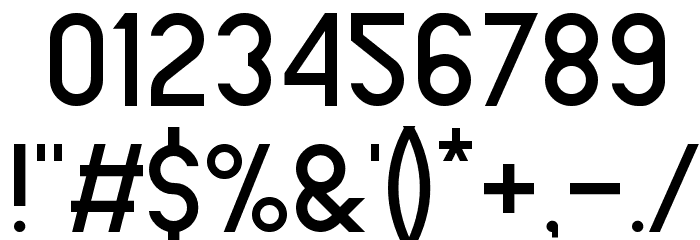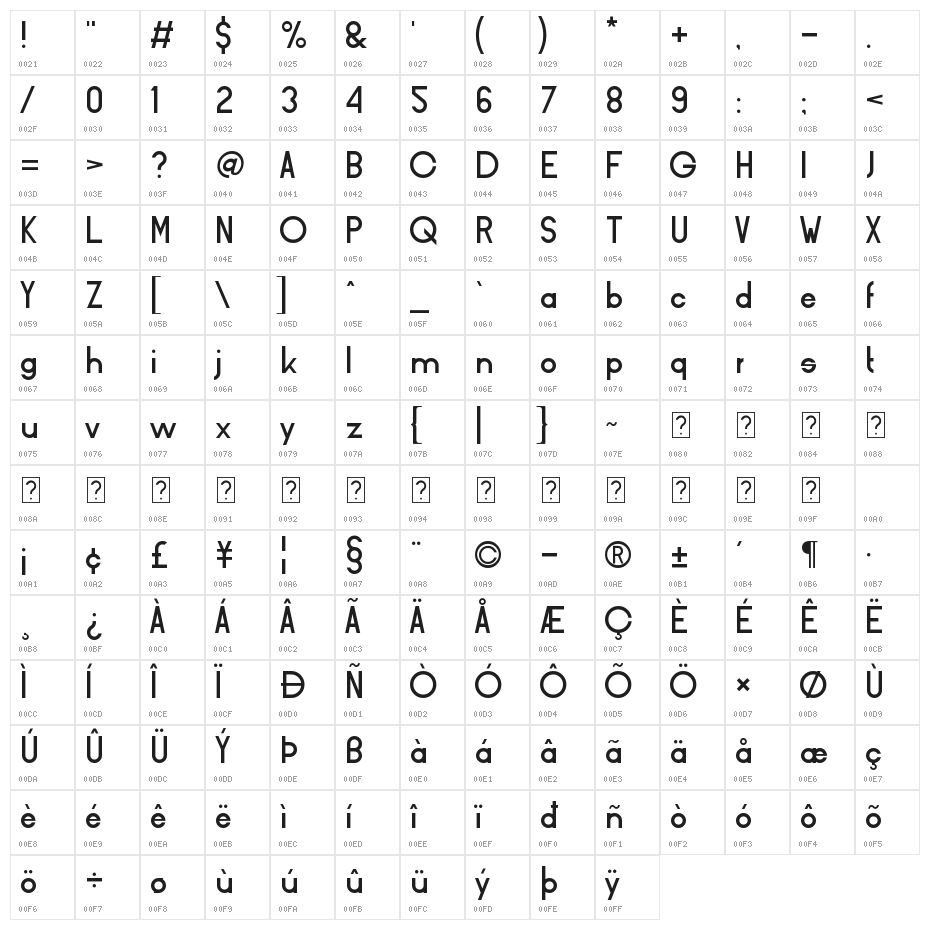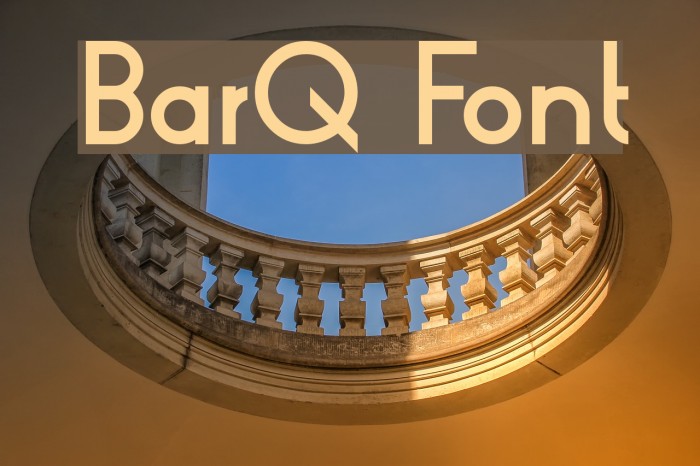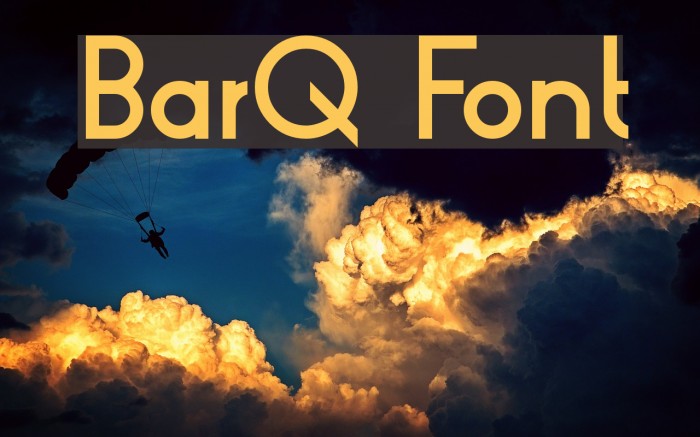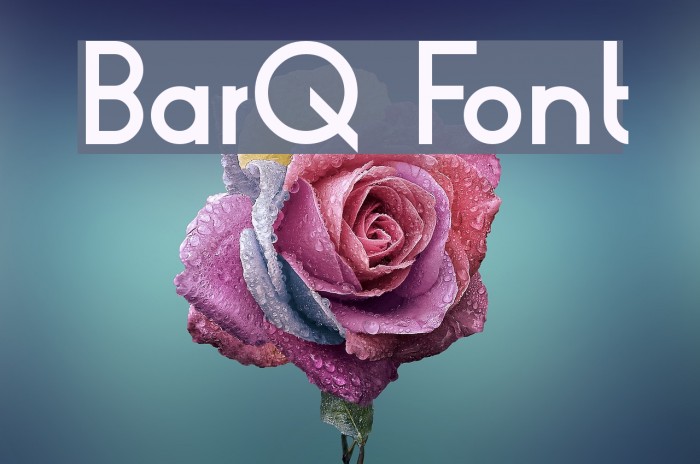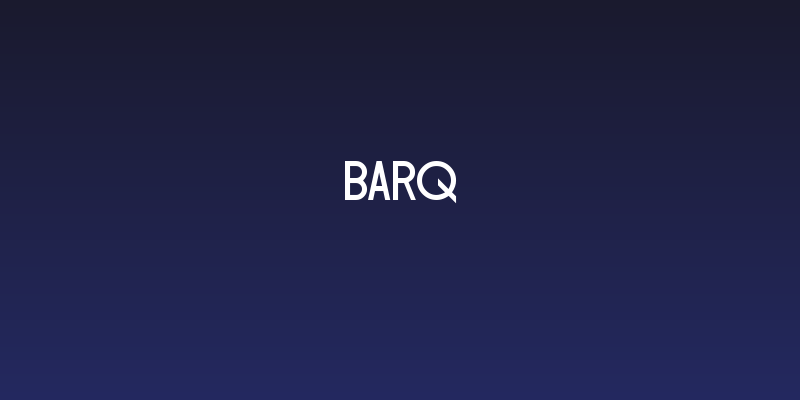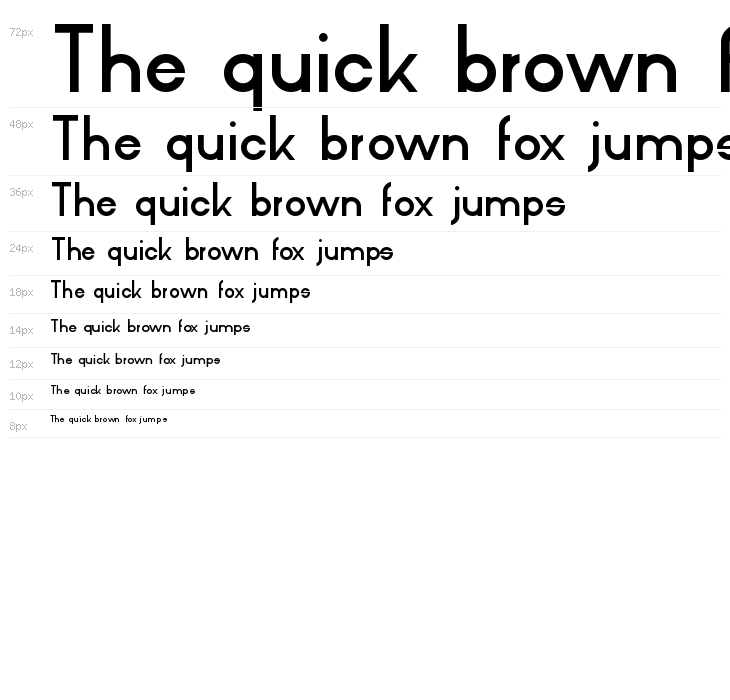
BarQ Font
BarQ Description
This font features a clean and modern sans-serif design with geometric influences. The characters are well-balanced and display a uniform stroke width, contributing to a harmonious and contemporary appearance. The uppercase letters are bold and assertive, while the lowercase letters maintain a friendly and approachable feel. The numerals are clear and easily readable, making them suitable for a variety of applications. Special characters are distinct and maintain the overall aesthetic of the font. The design is versatile, making it suitable for both digital and print media.